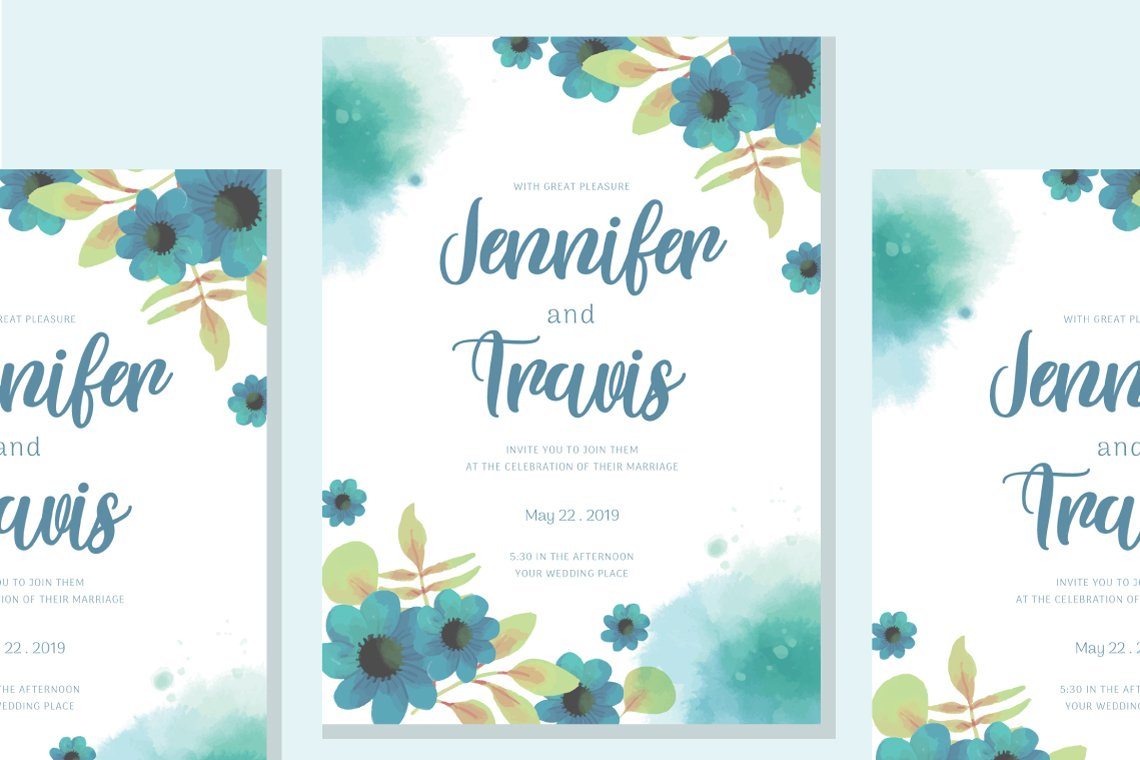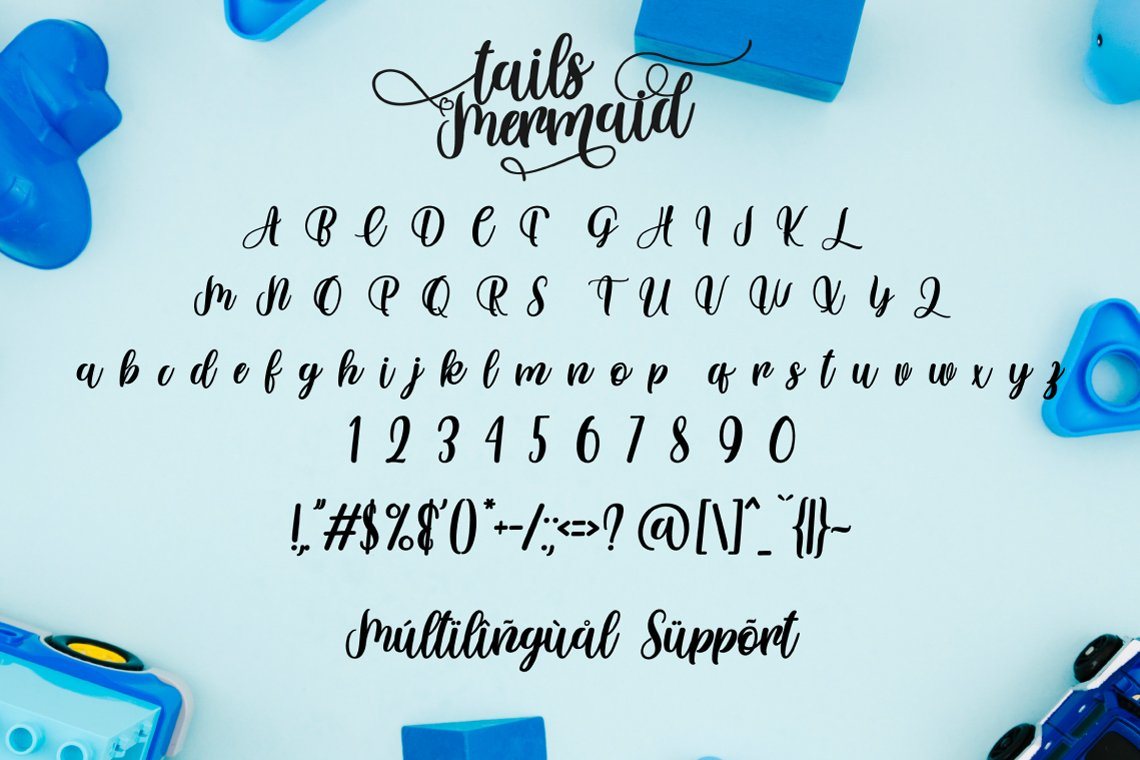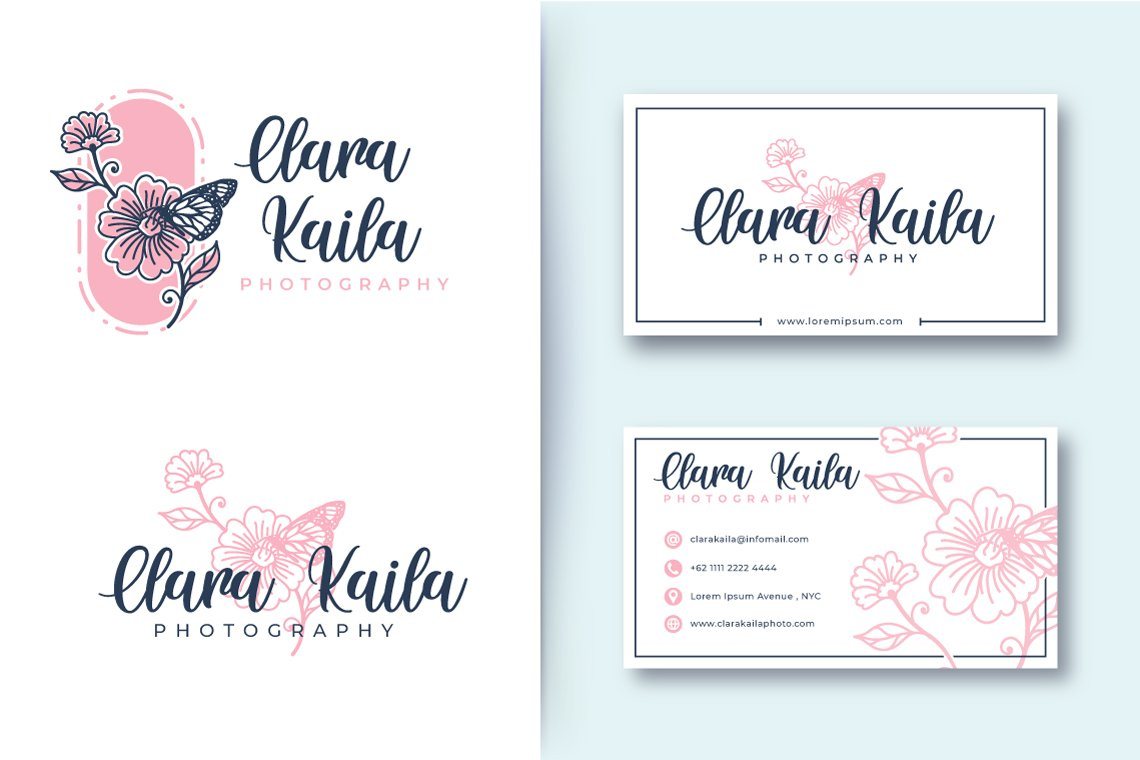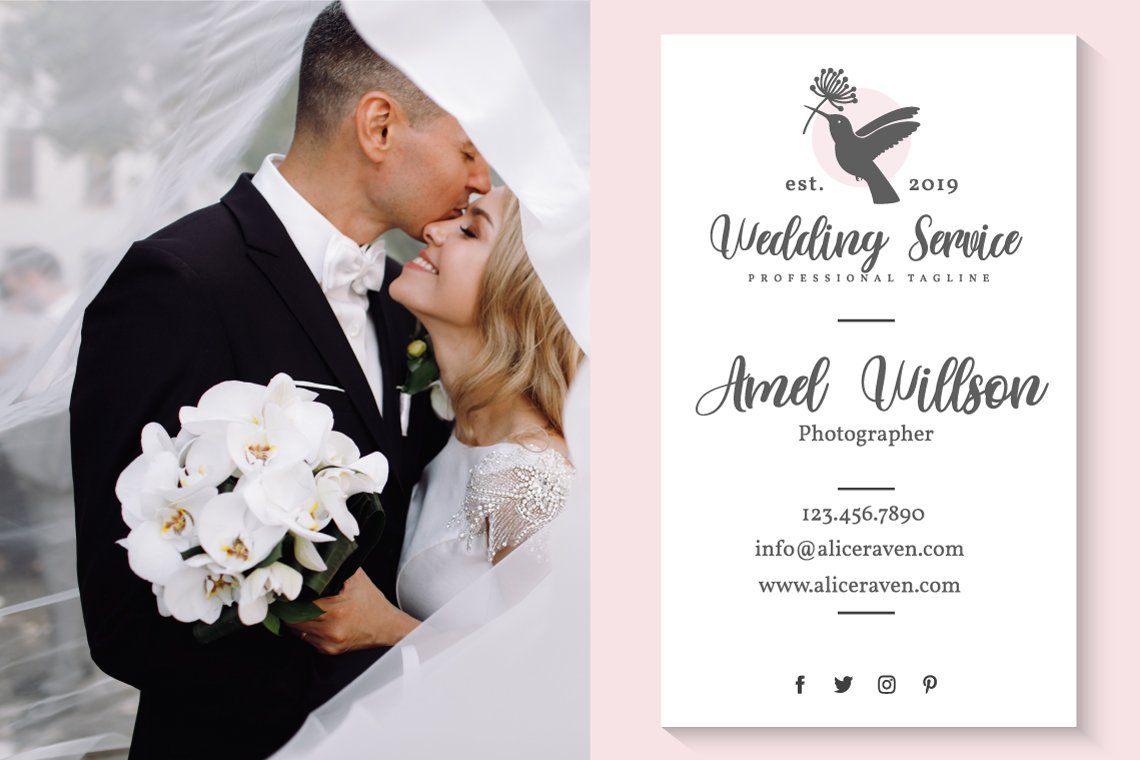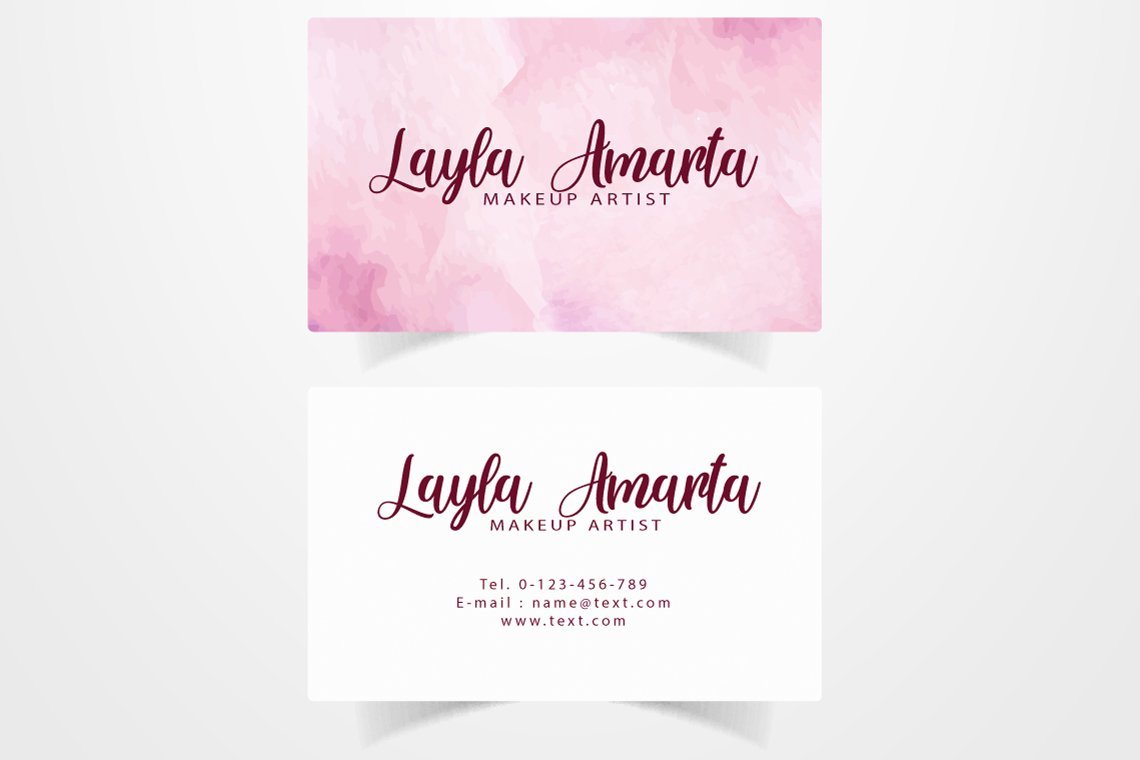
About Tails Mermaid – a Crafted Script
Tails Mermaid is cute and lovely, but also fancy. This versatile script font has a wide range of applications ranging from greeting cards to headlines and is guaranteed to add a romantic touch to your next design.This font is PUA encoded which means you can access all of the cute glyphs and swashes with ease! It also features a wealth of special features including alternate glyphs and ligatures. I hope you enjoy it !! Thanks for visiting and downloading my font!what’s inside : Tails Mermaid otf,ttf,woff Accents (Multilingual Characters) PUA encoded Numerals and Punctuations (OpenType Standard) Many of alternates